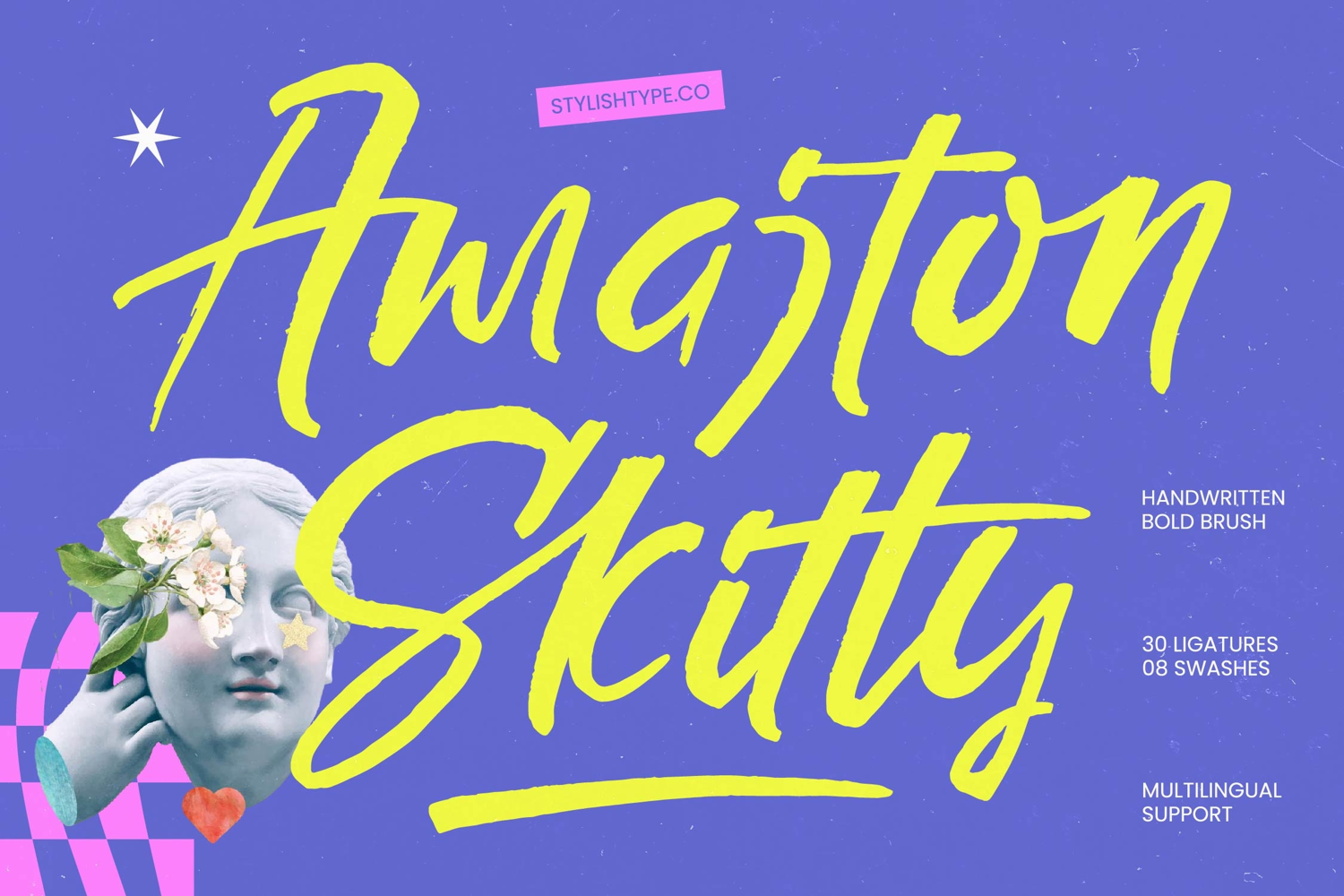
Amajton Skitty - Handwritten Bold Brush
Elevate your creative vision with an energetic and expressive aesthetic. Amajton Skitty - Handwritten Bold Brush is a powerhouse of bold personality, offering a raw and organic feel that commands attention instantly. Its high-impact strokes and fluid movements bring a sense of authentic artistry to every layout. Designed for maximum visibility, this font captures the essence of contemporary brush lettering with a modern, urban edge that stands out in a competitive digital landscape.
Experience unparalleled flexibility with a tool designed for the modern global creator. Beyond its striking visual appeal, the font features 30 unique ligatures and 8 stylized swashes that allow for a truly customized, handcrafted look. With its extensive multilingual support, Amajton Skitty - Handwritten Bold Brush adapts seamlessly across global markets, making it incredibly versatile for international projects. This technical depth ensures that your messaging remains consistent and powerful regardless of the language or region.